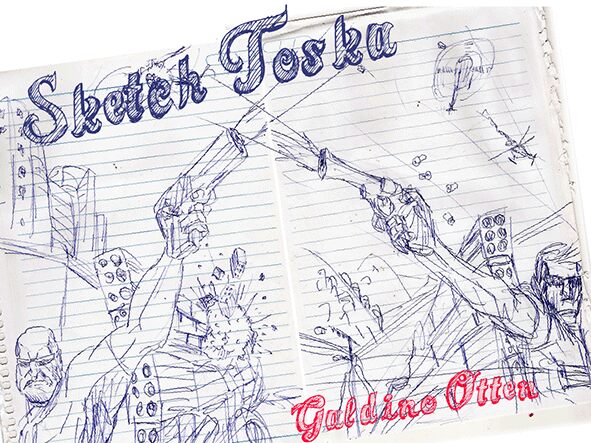
Sketch Toska, a free eroded decorative display font designed by Galdino Otten in 2013, turns ornate looping letterforms into rough, densely worked ink drawings. Its broad curves, sharp changes in stroke width, and sweeping flourishes carry restless diagonal hatching through the interiors, and uneven edges keep the lettering deliberately raw.
Hand-drawn spectacle and vintage theatrical themes are its natural territory. It suits dramatic music posters, spirits packaging, and themed event graphics with a cabaret or antique-print character. The same scratched ornament links those uses to tattoo-inspired merchandise and richly illustrated editorial covers.